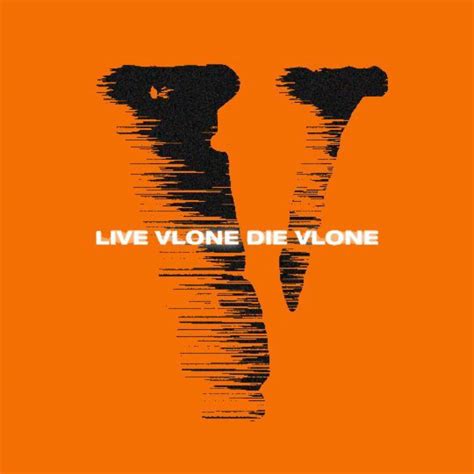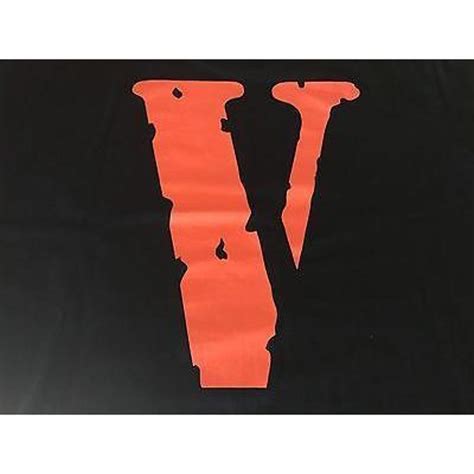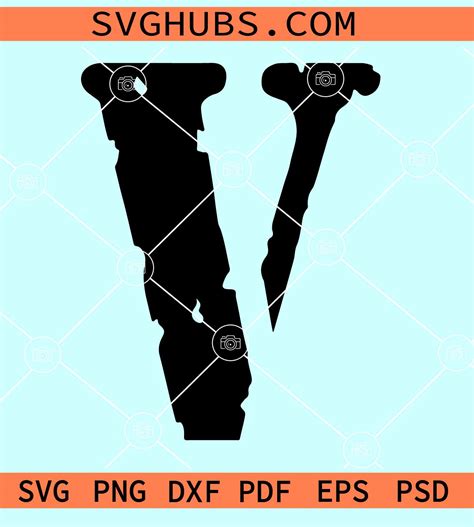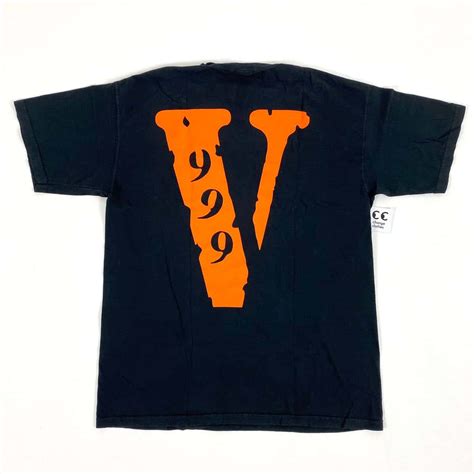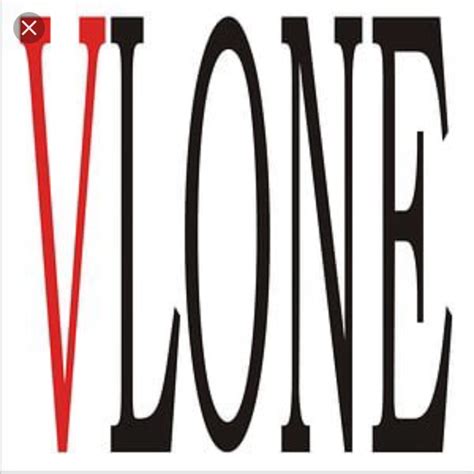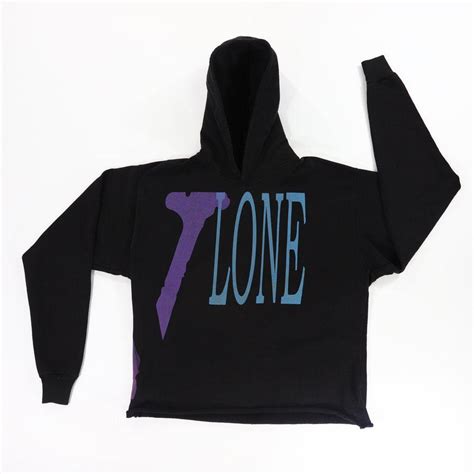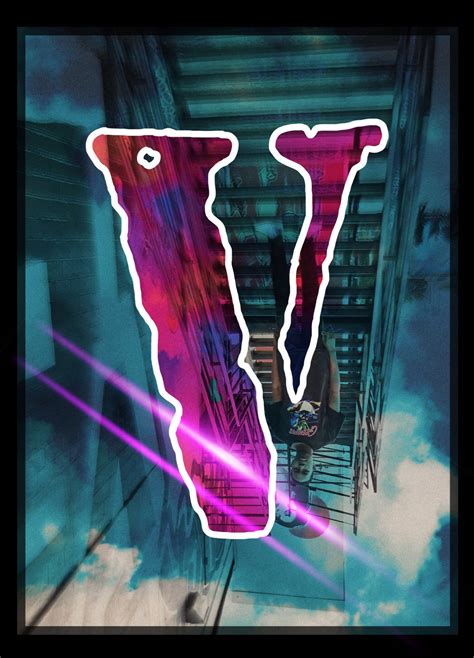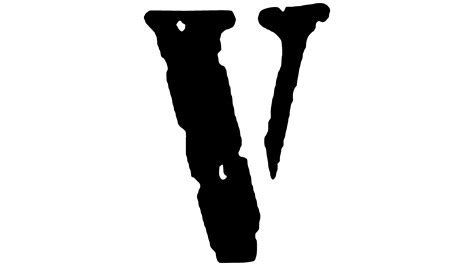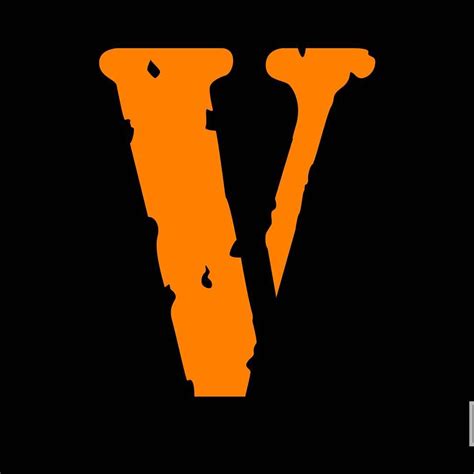
Discover the Vlone logo font used in streetwear fashion. Download this iconic gothic-style typeface, explore design alternatives, and elevate your typography.